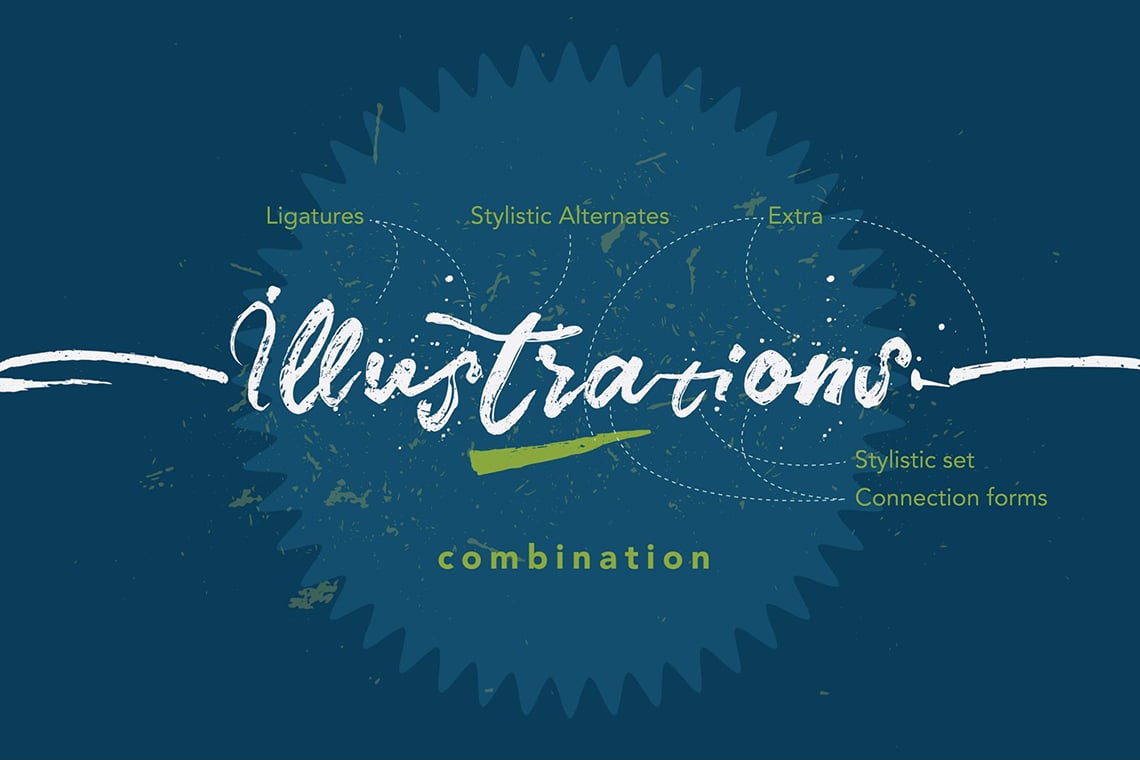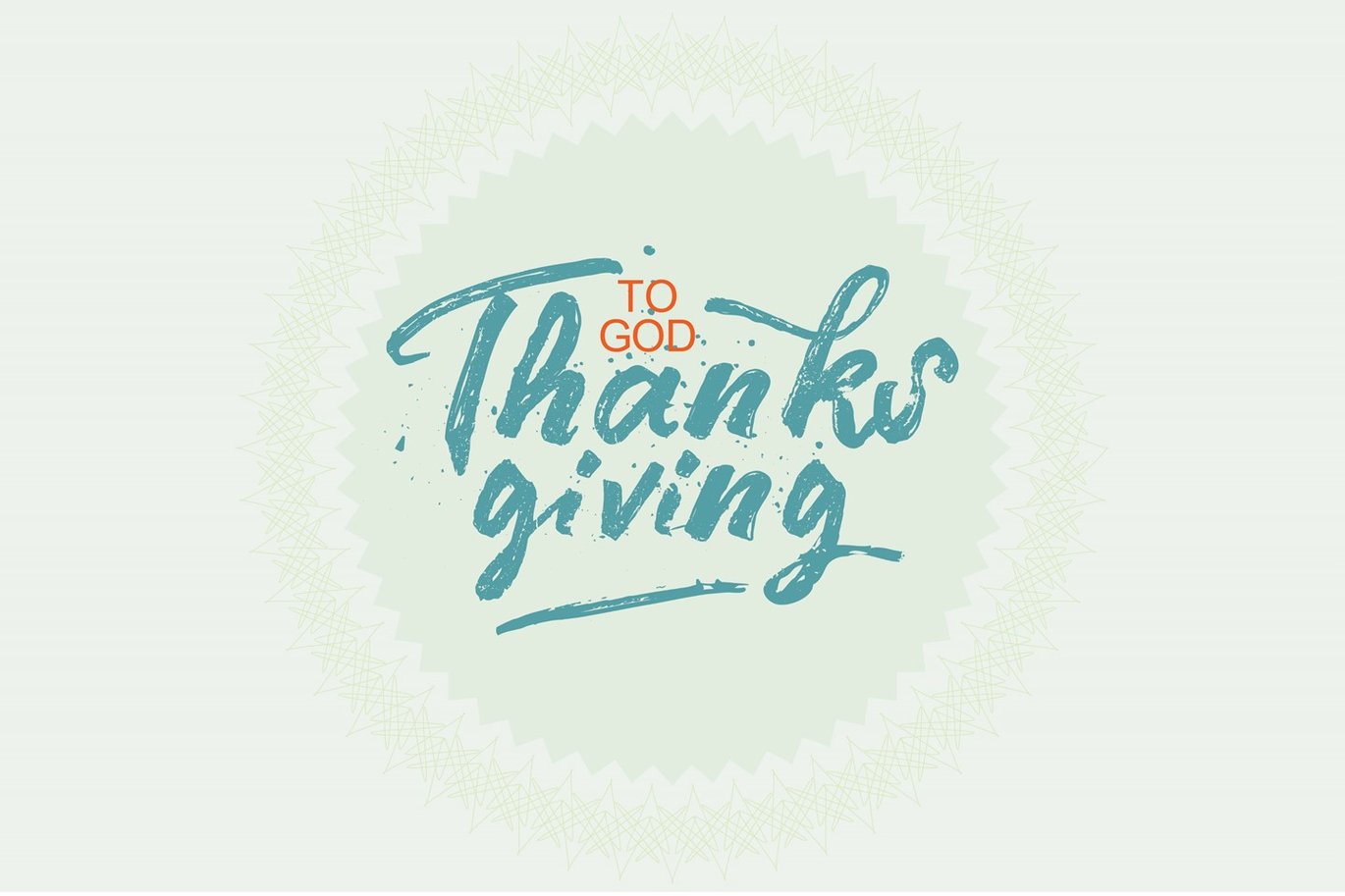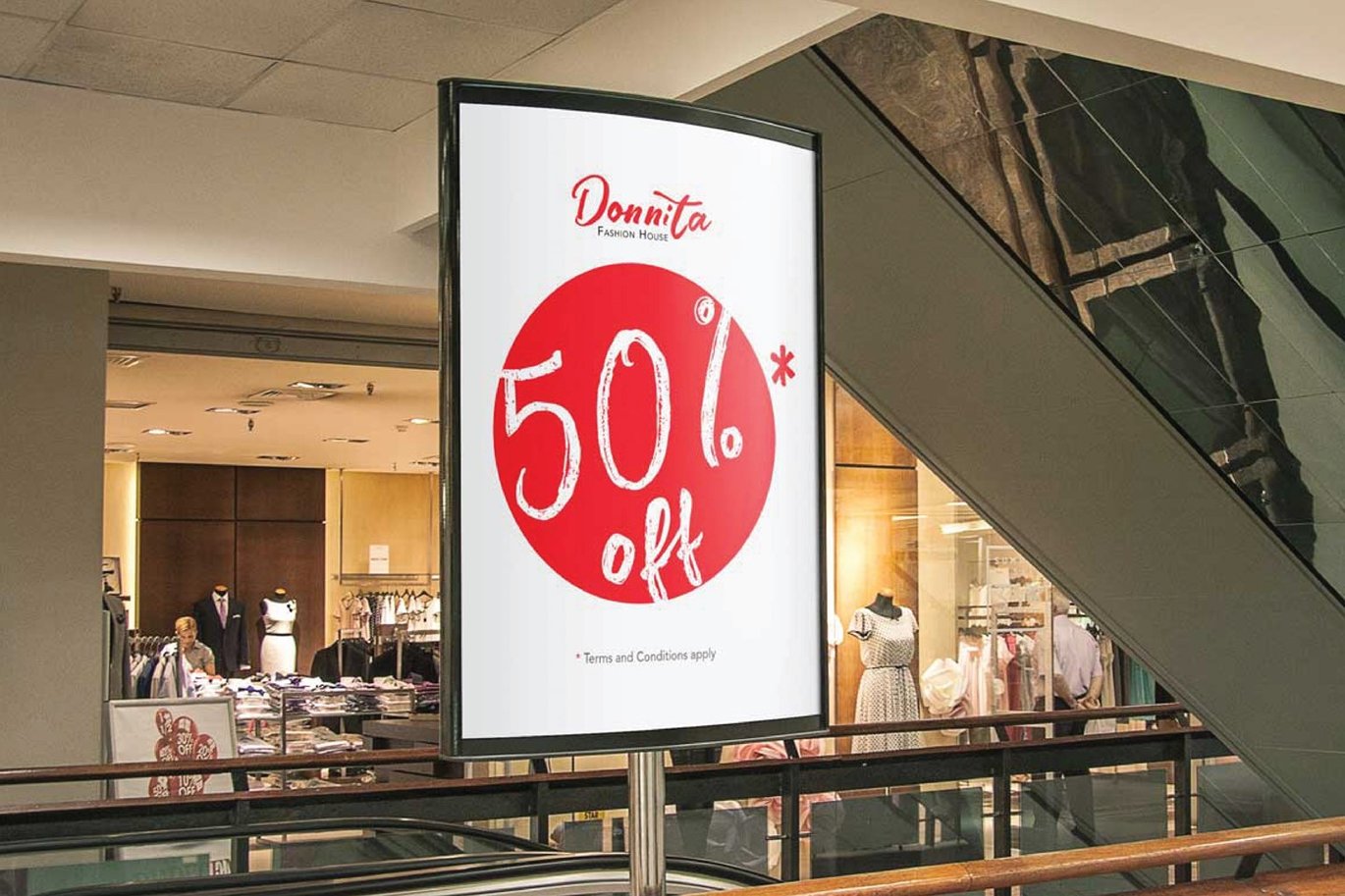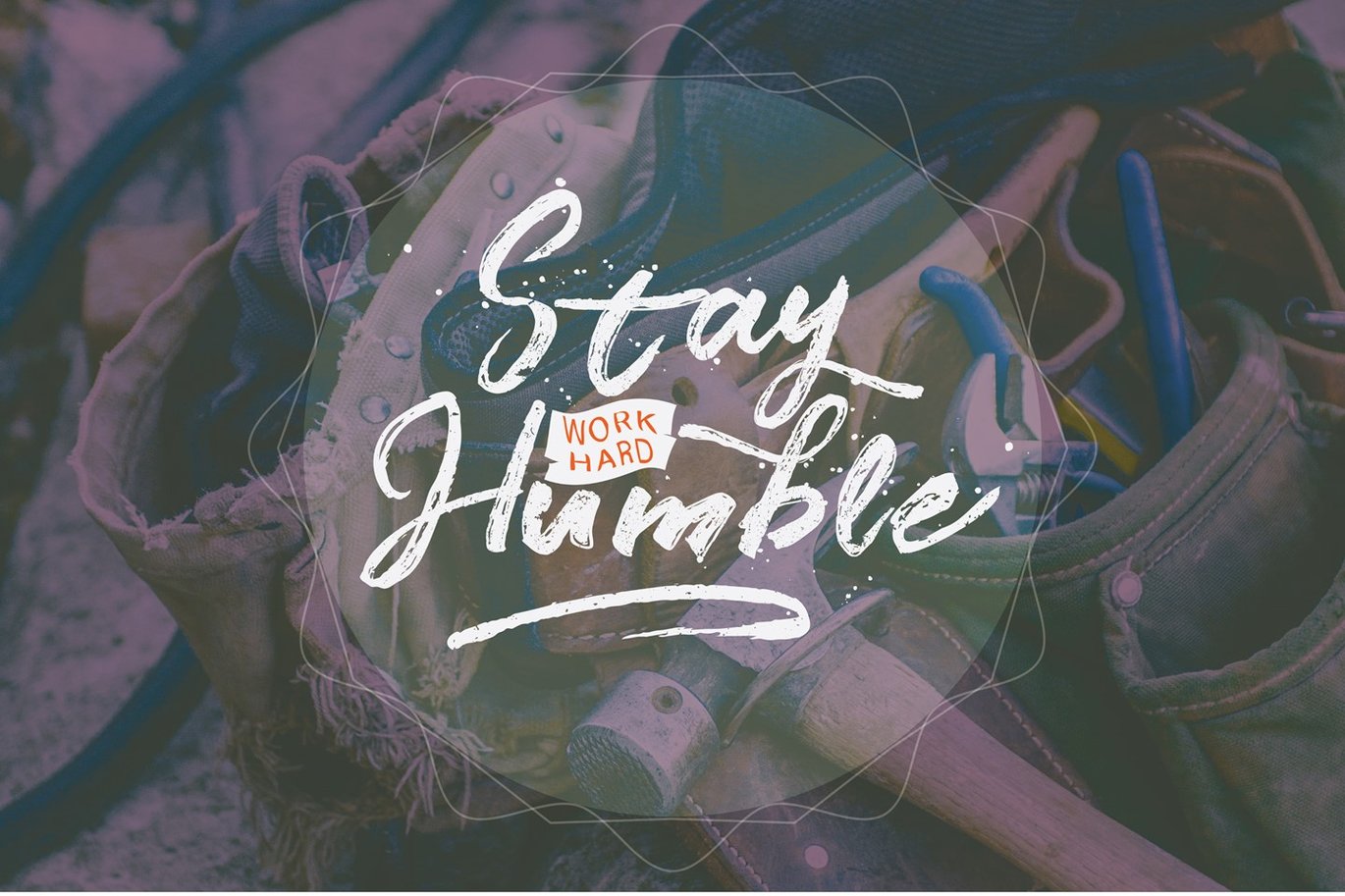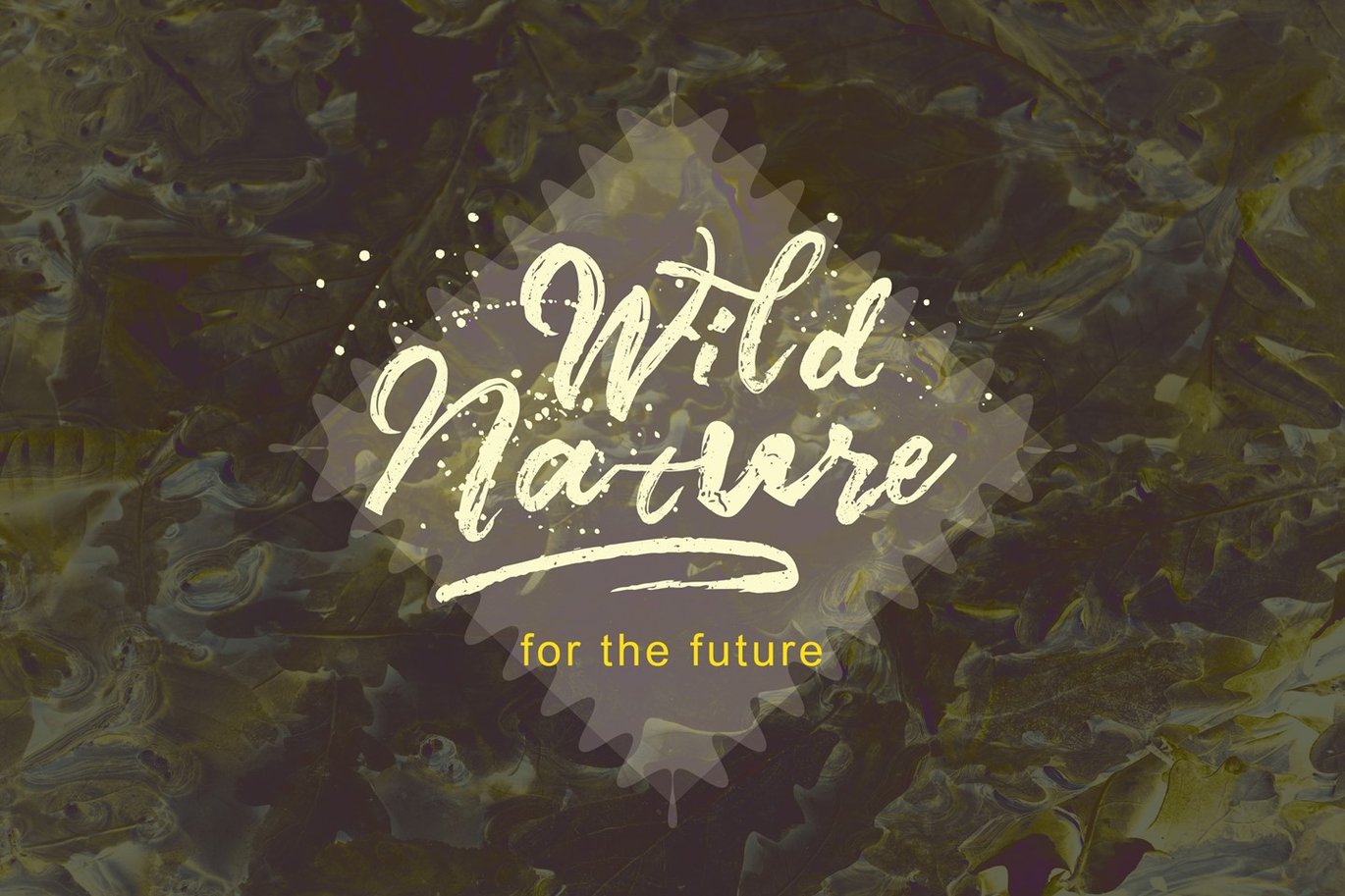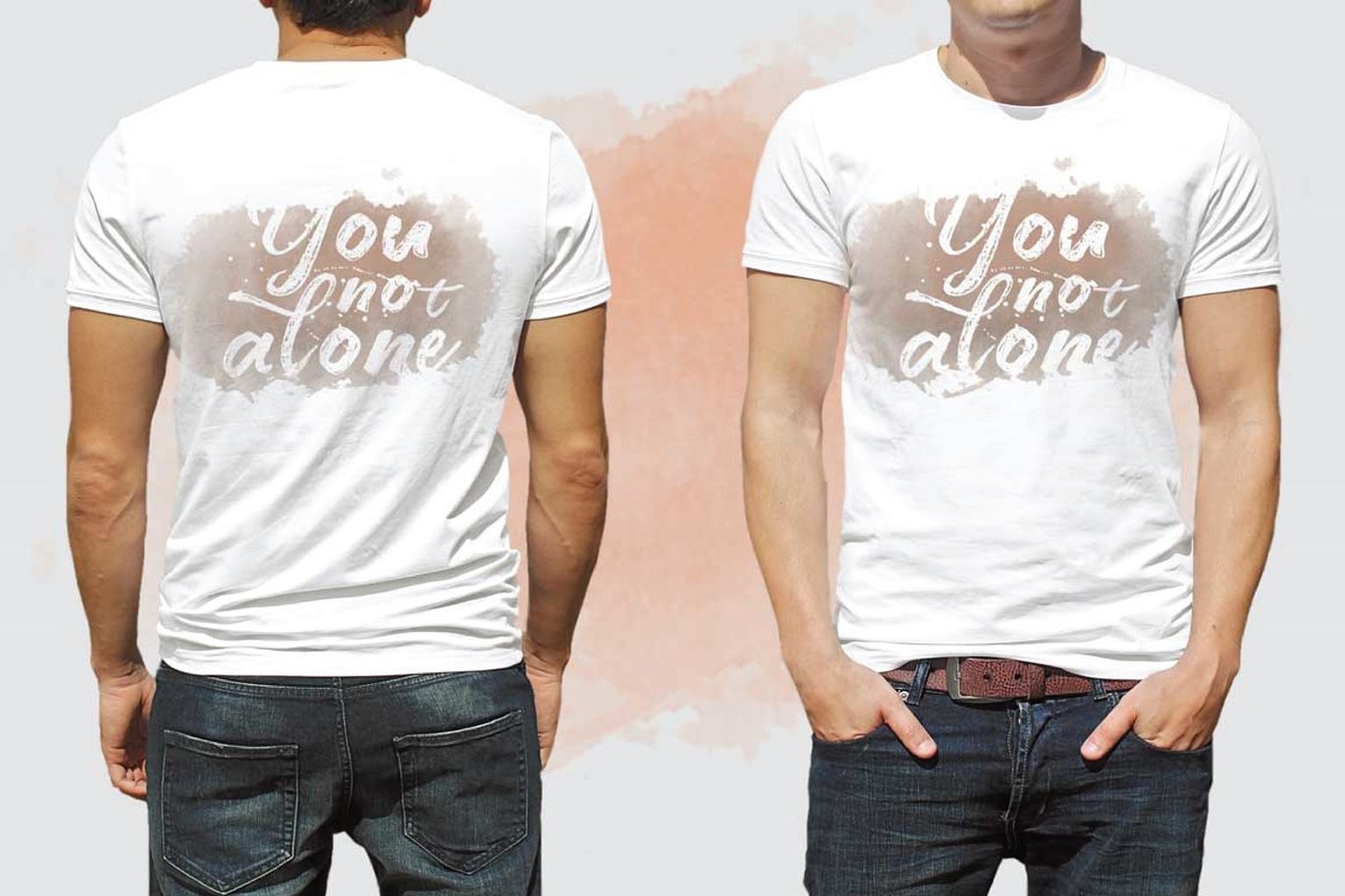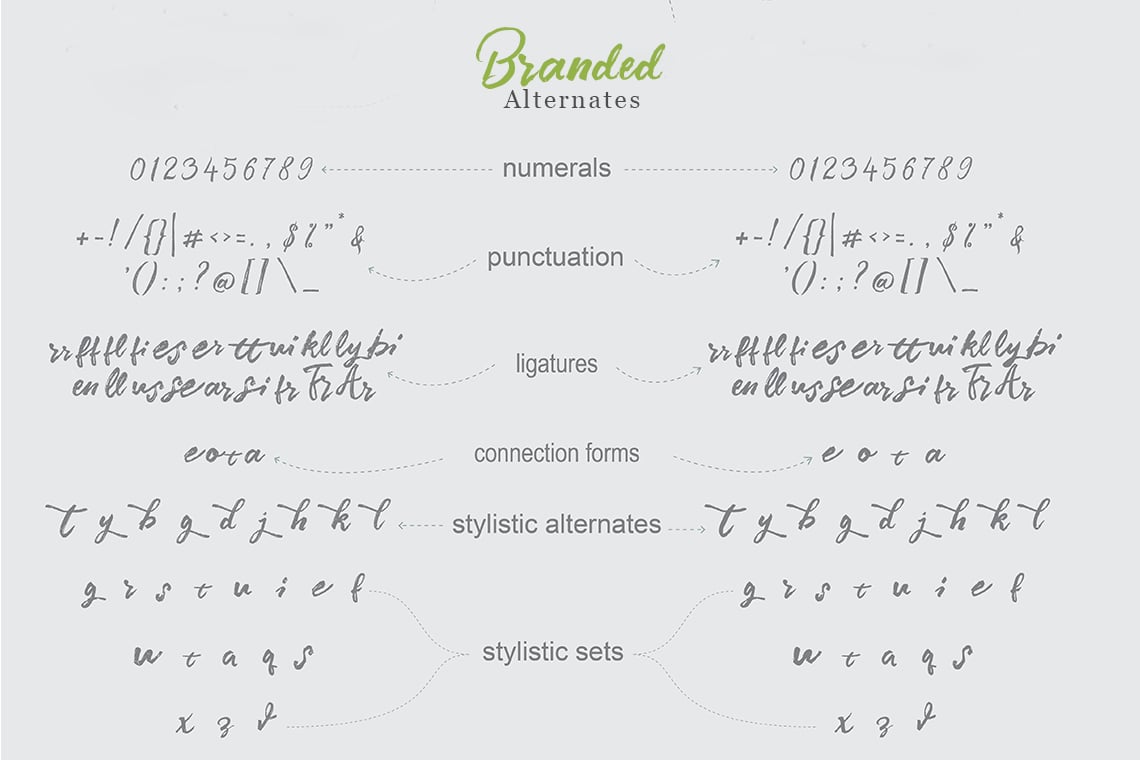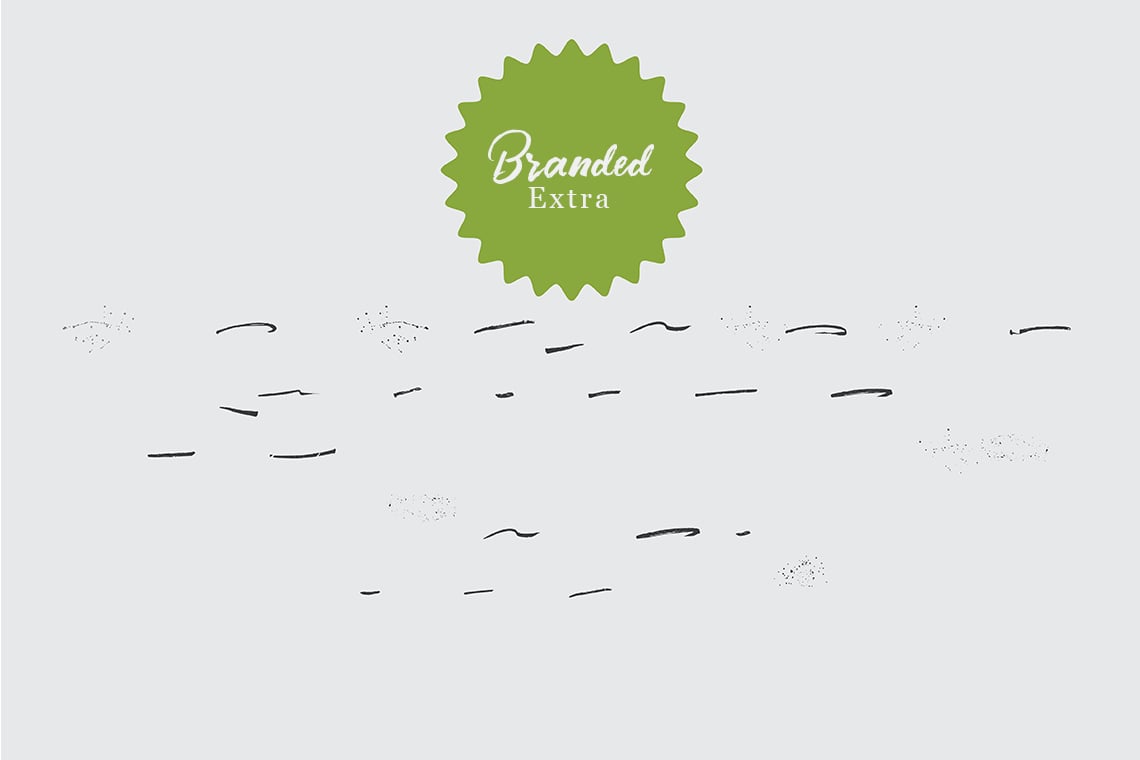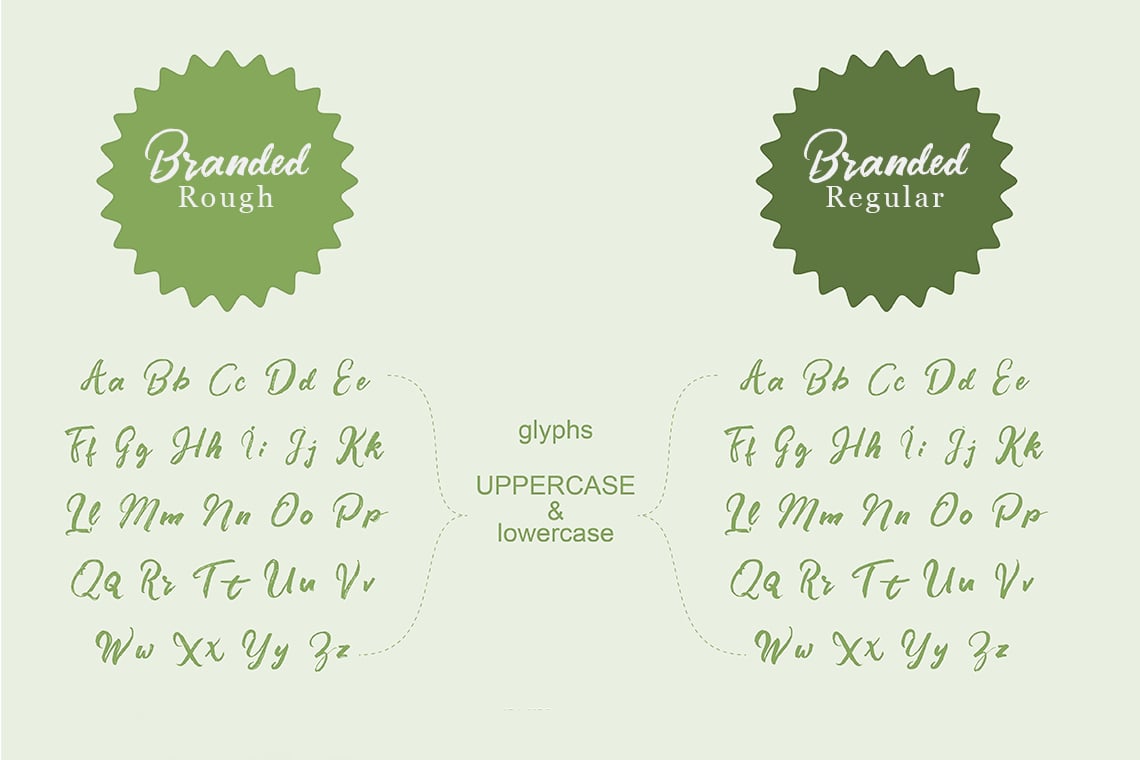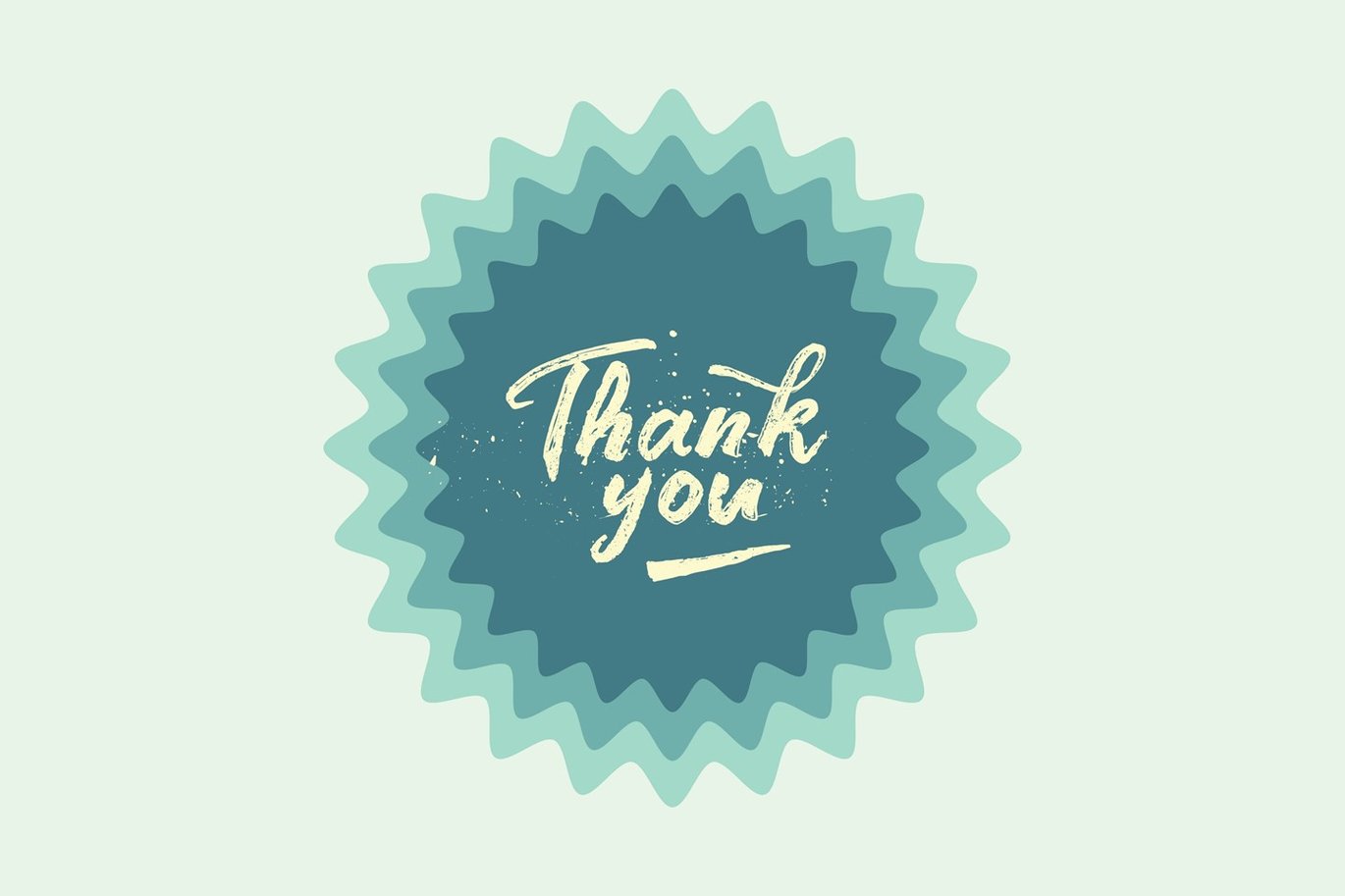
Branded Handbrush Font
Branded Handbrush Font is a new and fresh font script that comes with two styles of clean and rough style and plus bonus extra brush that gives a natural impression. so this font can provide an alternative, new sensation and vintage feel for the designer or craftsman, in working on various projects.
Branded Handbrush Typeface comes with alternative characters that were divided into several Open Type features such as Swash, Stylistic Sets, Stylistic Alternates, Contextual Alternates, and Ligature. The Open Type features can be accessed by using Open Types savvy programs such as Adobe Illustrator, Adobe InDesign, Adobe Photoshop Corel Draw X version, And Microsoft Word. And this Font has given PUA Unicode (specially coded fonts). so that all the alternative characters can be accessed easily and in full by the craftsman or designer.
- Initial Alternates
- Contextual Alternates
- Standard Ligatures
- Unique ligatures
- Stylistic Alternates
- Stylistic sets
- International Symbols Support